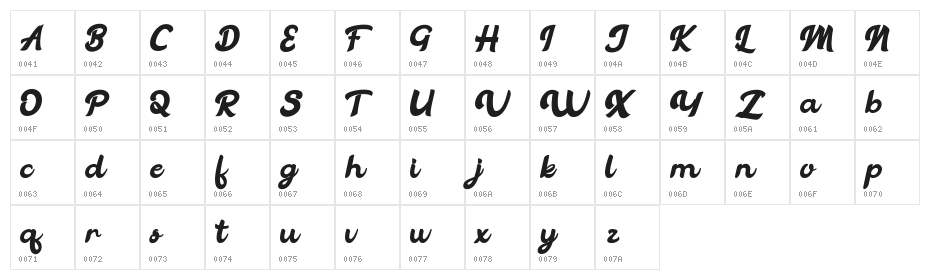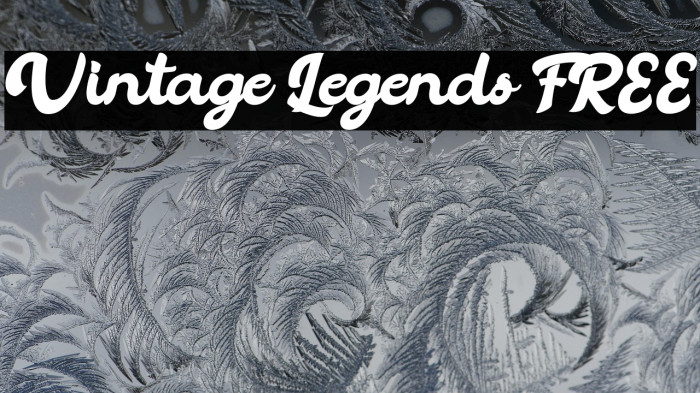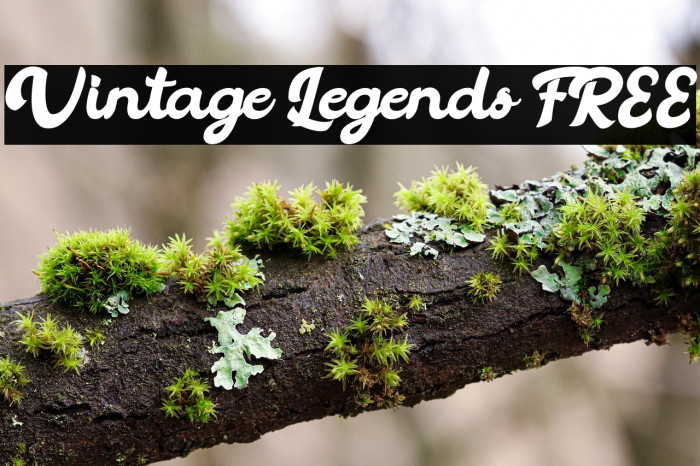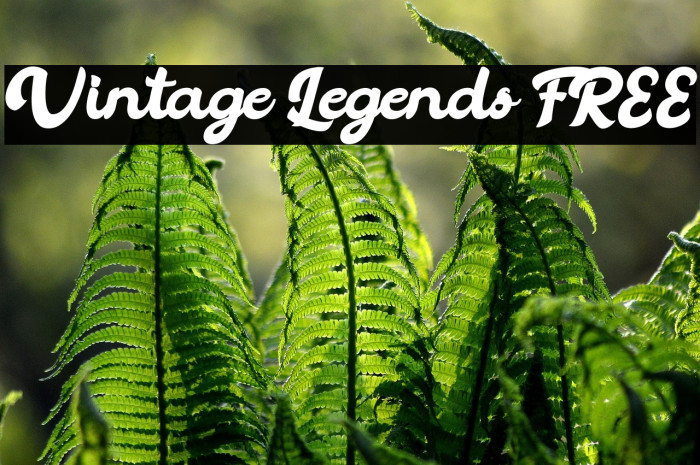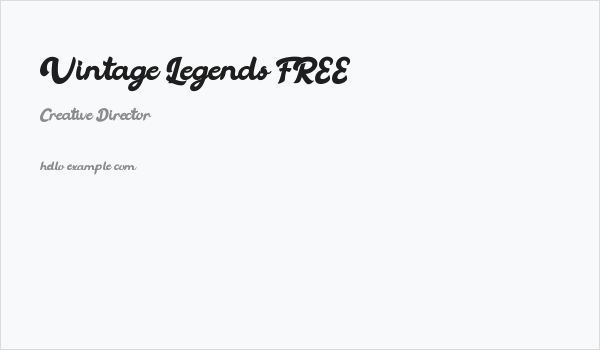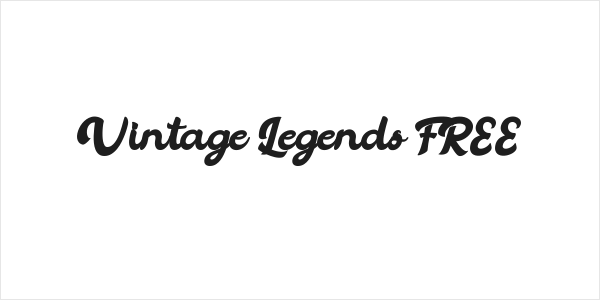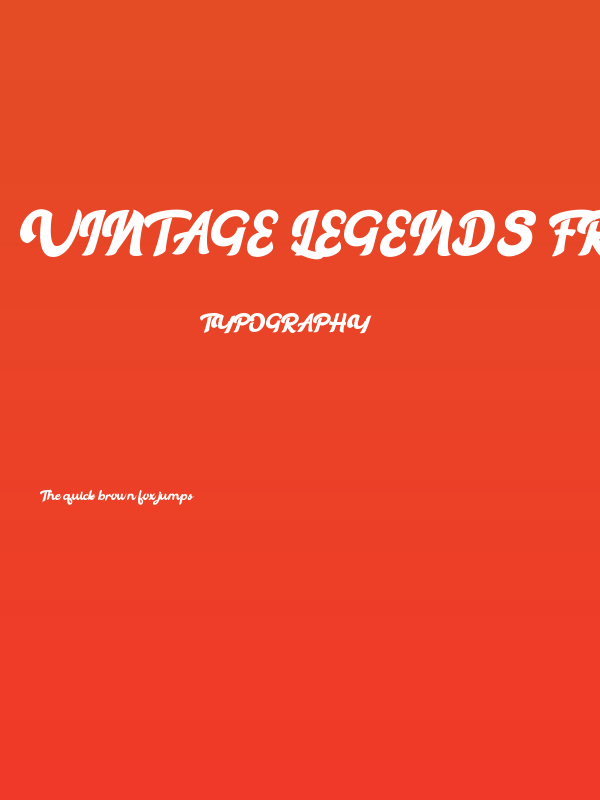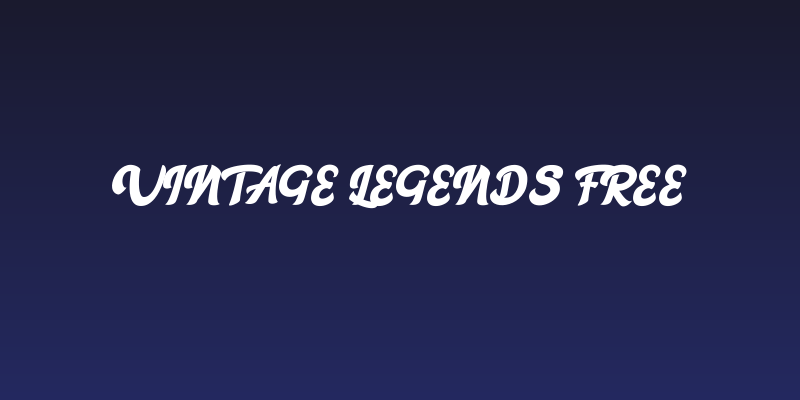
Vintage Legends FREE Font
Vintage Legends FREE Description
This font features a bold, flowing script style with a vintage flair. The characters are interconnected, creating a sense of movement and elegance. The uppercase letters are slightly more ornate, with flourishes that add a touch of sophistication. The lowercase letters maintain a consistent flow, enhancing readability while preserving the decorative nature. The numbers and special characters are crafted to match the overall aesthetic, ensuring a cohesive look across all text. This font is perfect for projects that require a touch of nostalgia and elegance.